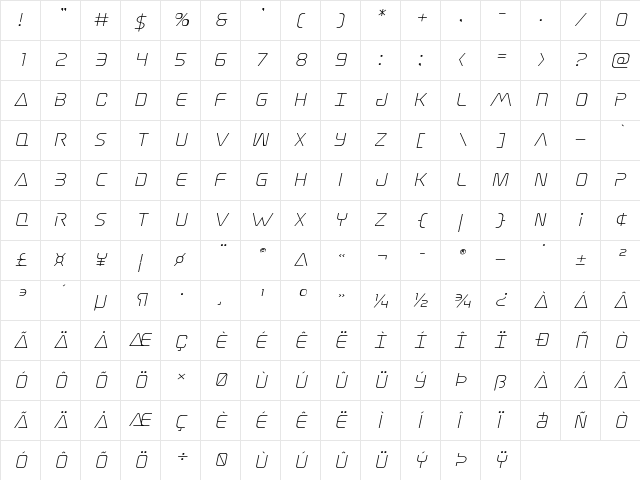
Elite Danger Expanded Italic Expanded Italic
Design Context for Elite Danger Expanded Italic Typeface
Elite Danger Expanded Italic takes a measured approach to typography — its balanced proportions and neutral character make it a reliable workhorse for both digital and print work. The slanted form adds forward momentum and visual energy.
Pro Tip: Use Elite Danger Expanded Italic for emphasis, pull quotes, and subheadings where its slanted energy can add rhythm to the layout.